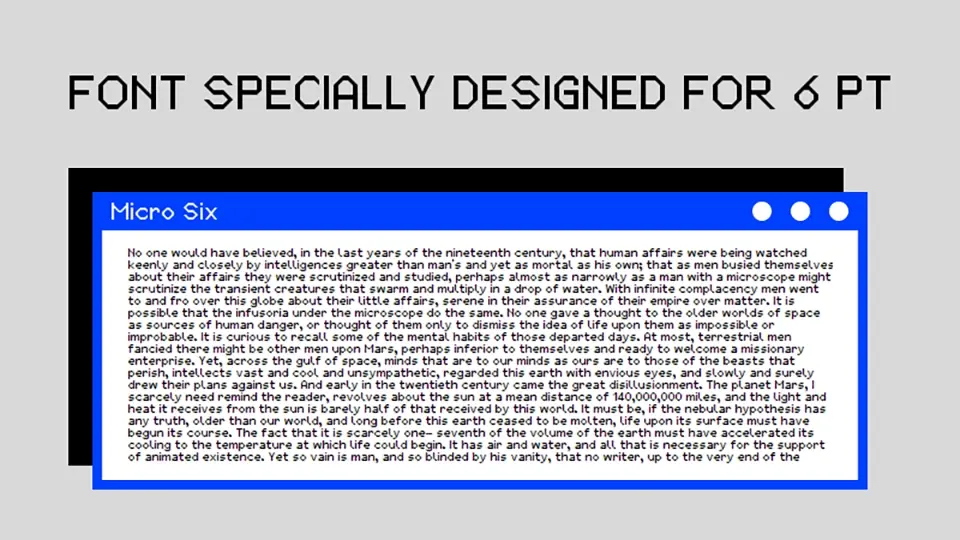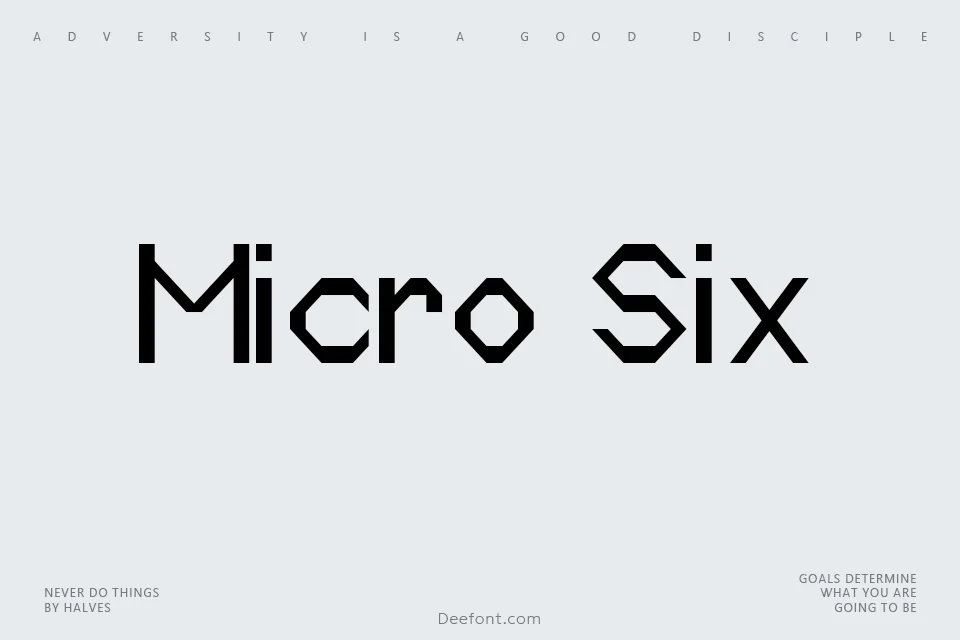
Micro Six Font
Micro Six is an exceptional bitmap font specifically engineered for 6-pixel-size display, delivering crisp readability at minimal scale. Designed by GGBotNet and licensed under SIL Open Font License, this ultra-compact typeface supports 280 glyphs across 11 languages including English, Latin, and Cyrillic. Perfect for retro-inspired projects, UI interfaces, and digital displays where space efficiency meets visual clarity. The font maintains exceptional legibility despite its diminutive specifications, making it ideal for game development, pixel art, and nostalgic typography applications. Its minimal footprint combined with comprehensive character coverage makes Micro Six an invaluable resource for designers seeking professional-quality micro-typography solutions.